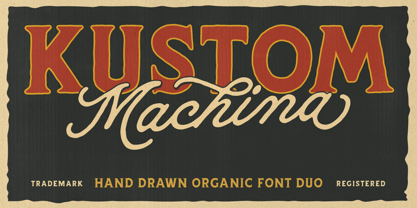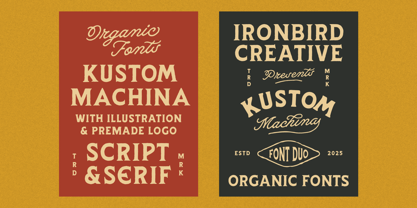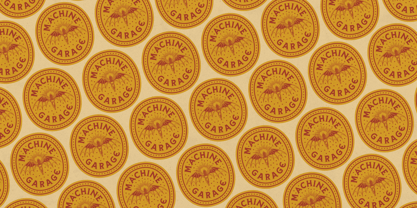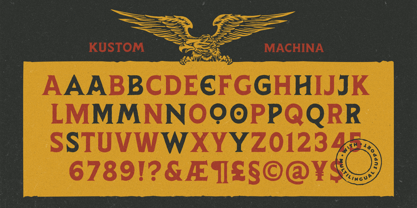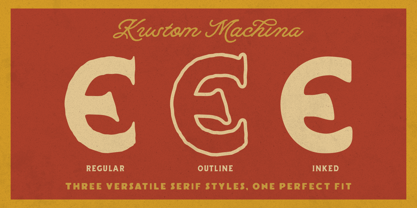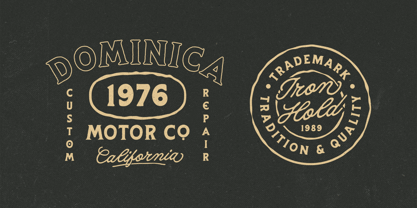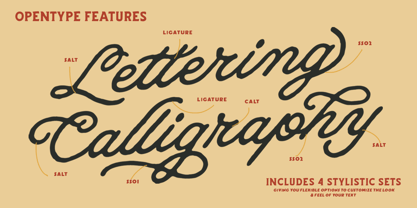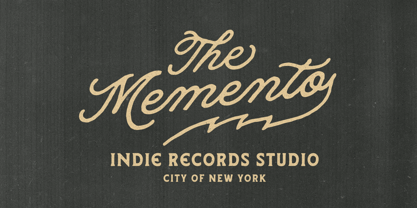
Kustom Machina
by Ironbird Creative
The Kustom Machina Font Family was designed by Bagas Ferdiansah, Septianto Nugroho and published by Ironbird Creative. Kustom Machina contains 2 styles and family package options. More about this family
Kustom Machina is a handcrafted font duo that combines bold vintage charm with smooth retro elegance. Featuring both Serif and Script styles, this typeface captures the essence of hand-lettered craftsmanship and is perfect for creating standout designs with an authentic, nostalgic touch. Whether you are working on branding, packaging, apparel design, posters, café logos, or label artwork, Kustom Machina delivers flexibility and style. Its Script version offers a flowing handmade look, while the Serif version brings solid structure and vintage character. Features: • 4 Styles: Regular, Script, Inked, and Outline • Full OpenType features (alternates and ligatures) • Great for branding, signage, retro packaging, and handcrafted labels
Designers: Bagas Ferdiansah, Septianto Nugroho
Foundry: Ironbird Creative